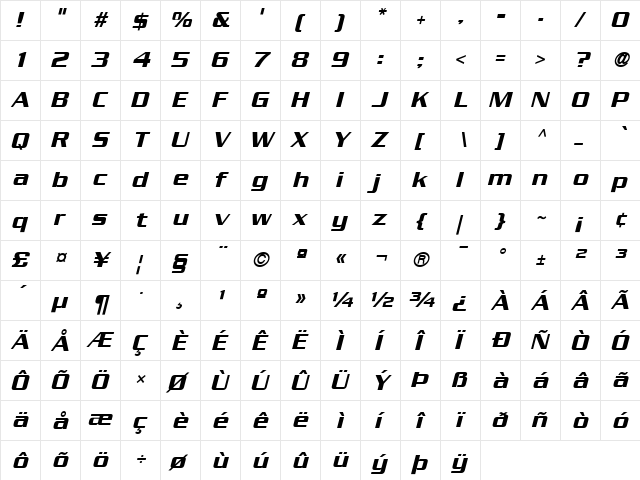
SerpentineSansICG Medium Italic
Design Context for SerpentineSansICG Typeface
SerpentineSansICG takes a measured approach to typography — its balanced proportions and neutral character make it a reliable workhorse for both digital and print work. The slanted form adds forward momentum and visual energy.
Pro Tip: Try SerpentineSansICG for annotation and caption copy alongside an upright companion — the contrast in angle creates a dynamic but ordered typographic system.